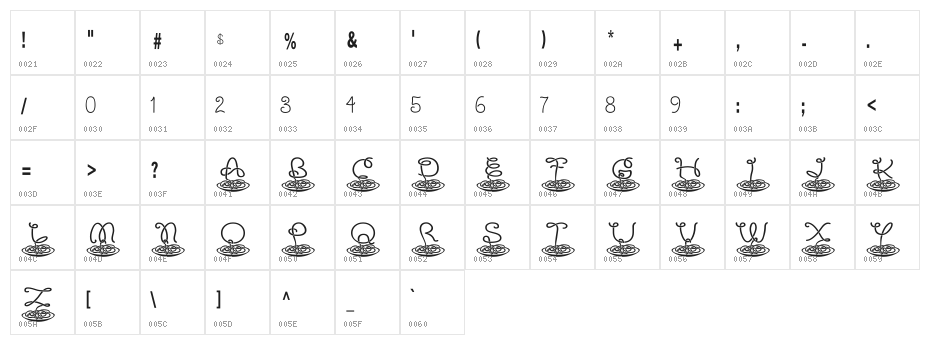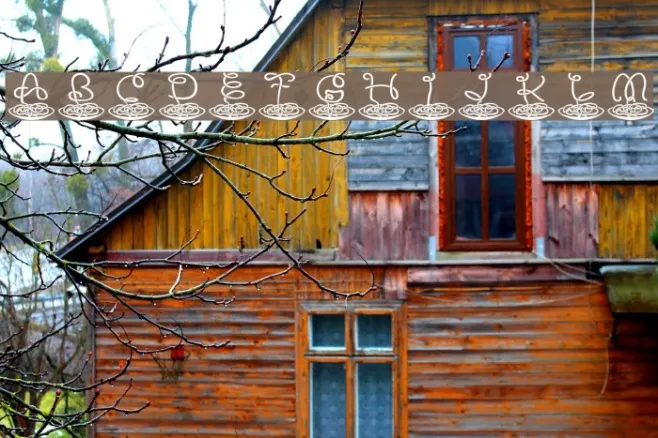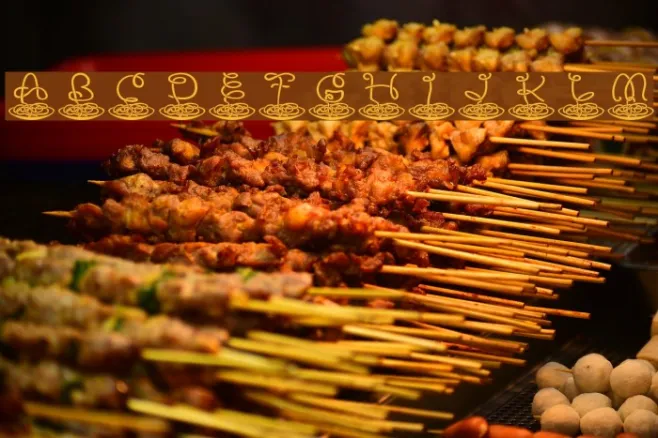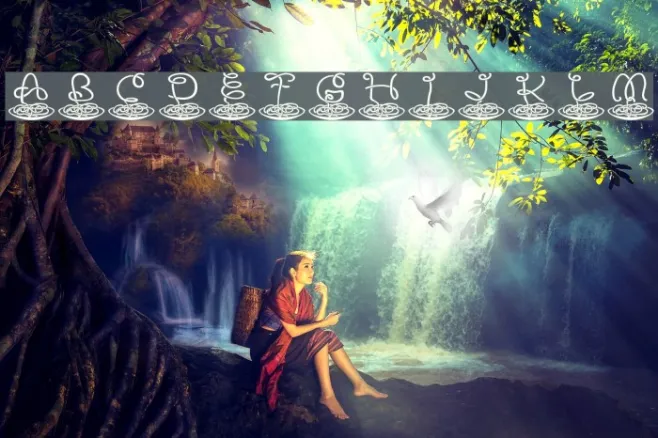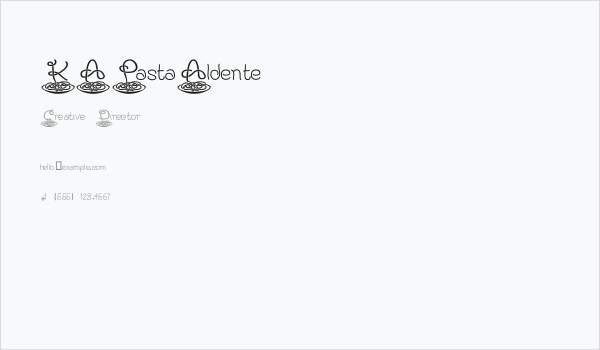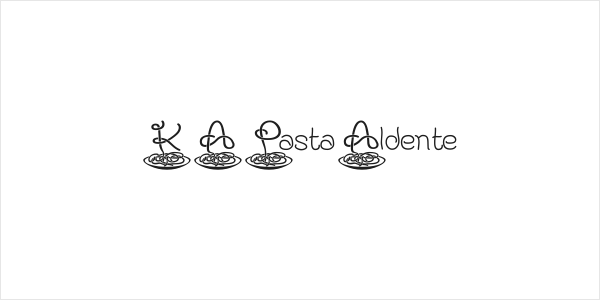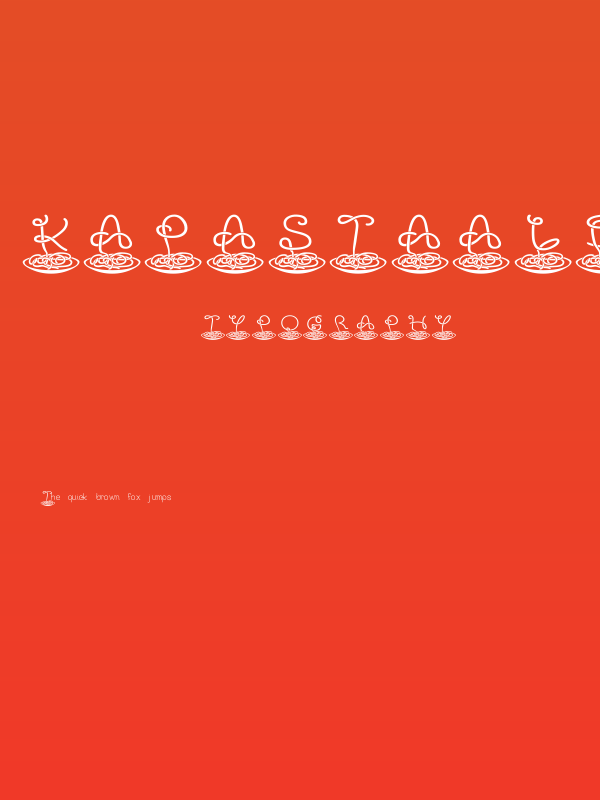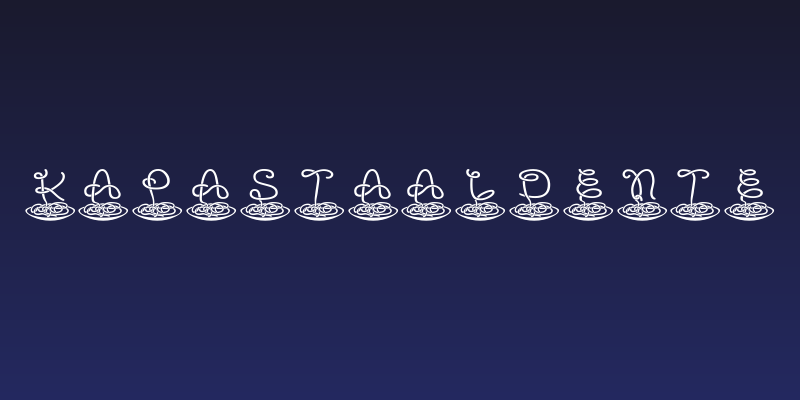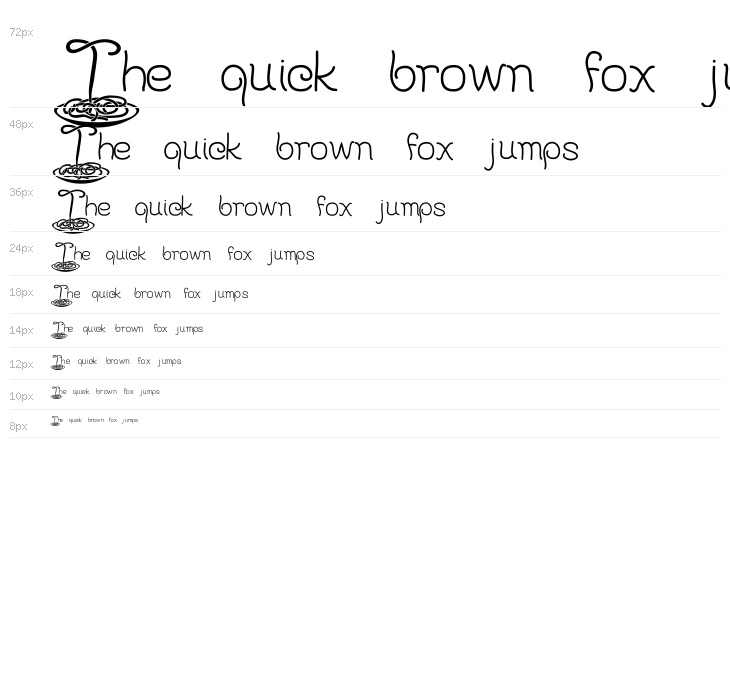
KAPastaAldente Font
KAPastaAldente Description
This whimsical and playful font features a unique design where each uppercase letter is creatively integrated with a pasta-like swirl at the base, adding a fun and decorative touch. The lowercase letters maintain a more straightforward, yet still playful style, with smooth curves and a slightly irregular baseline that enhances its casual appearance. The numerals and special characters are consistent with the lowercase style, ensuring readability while maintaining the font's overall quirky charm. This font is ideal for projects that require a lighthearted and imaginative feel.
| Proposed Projects | Ideal for children's books, food packaging, restaurant menus, and playful branding projects. |